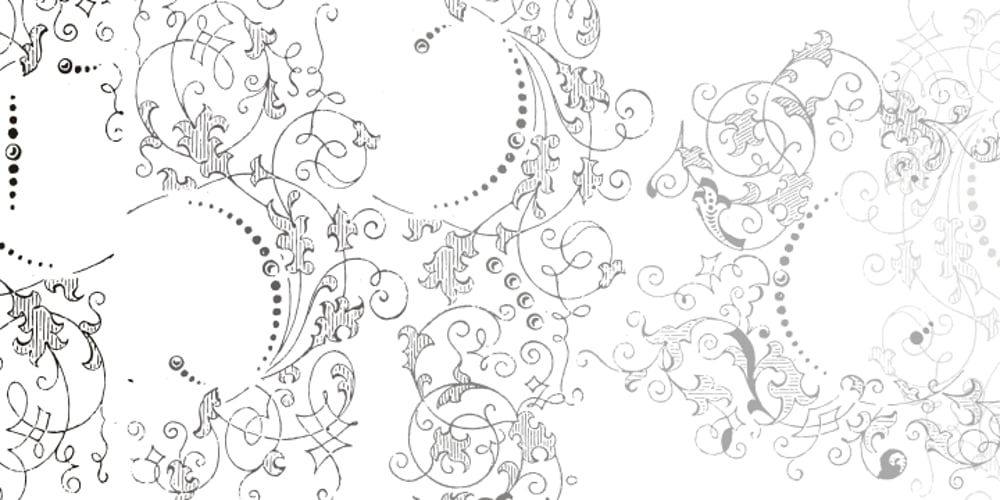
Grave Ornaments Font Family was designed by Paulo W and published by Intellecta Design. Grave Ornaments contains 3 styles and family package options. Grave is a Intellecta’s best seller, a classic font design remastered, distressed and antique, merging the bodonian style with tendrils and victorian ornaments. Ideal to use in in display purposes for a stylized type design. Its family of fonts has too Grave Ornaments, a dingbat/decorative display font featuring many different styles of flourishes and ornaments, great for a vintage antique feel. Completes the collection Grave Plus, where six different fonts has different styles of victorian fleurons and ornaments merging with a bodonian shaded typeface in great style. A beautiful and big family, available single or in pack with an attractive price.